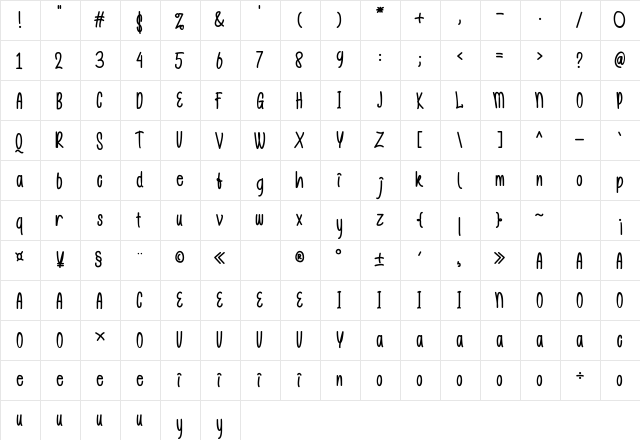
Gislake Regular
Design Context for Gislake Typeface
Gislake is a composed and adaptable typeface that performs quietly and consistently across a wide range of design contexts.